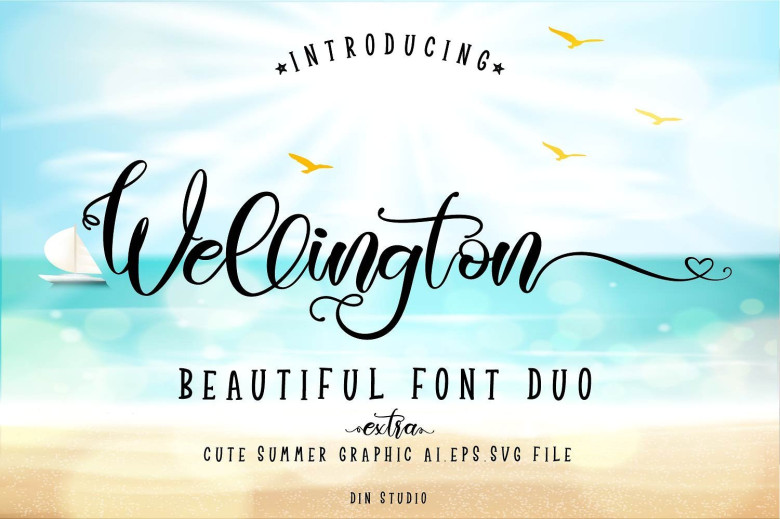
Wellington Script Font
If you are looking for a modern calligraphy font for your project, it’s here! Introducing Wellington Font. Wellington Font Duo Set is modern and fun script font with many advantages. This font will be suitable for branding projects, product packaging,quotes,greeting card and all your other lovely projects. Wellington Font Duo Set comes with modern and playful style. It contains a full set of lower & uppercase letters, a large range of punctuation, numerals, multilingual support and many cute alternates.